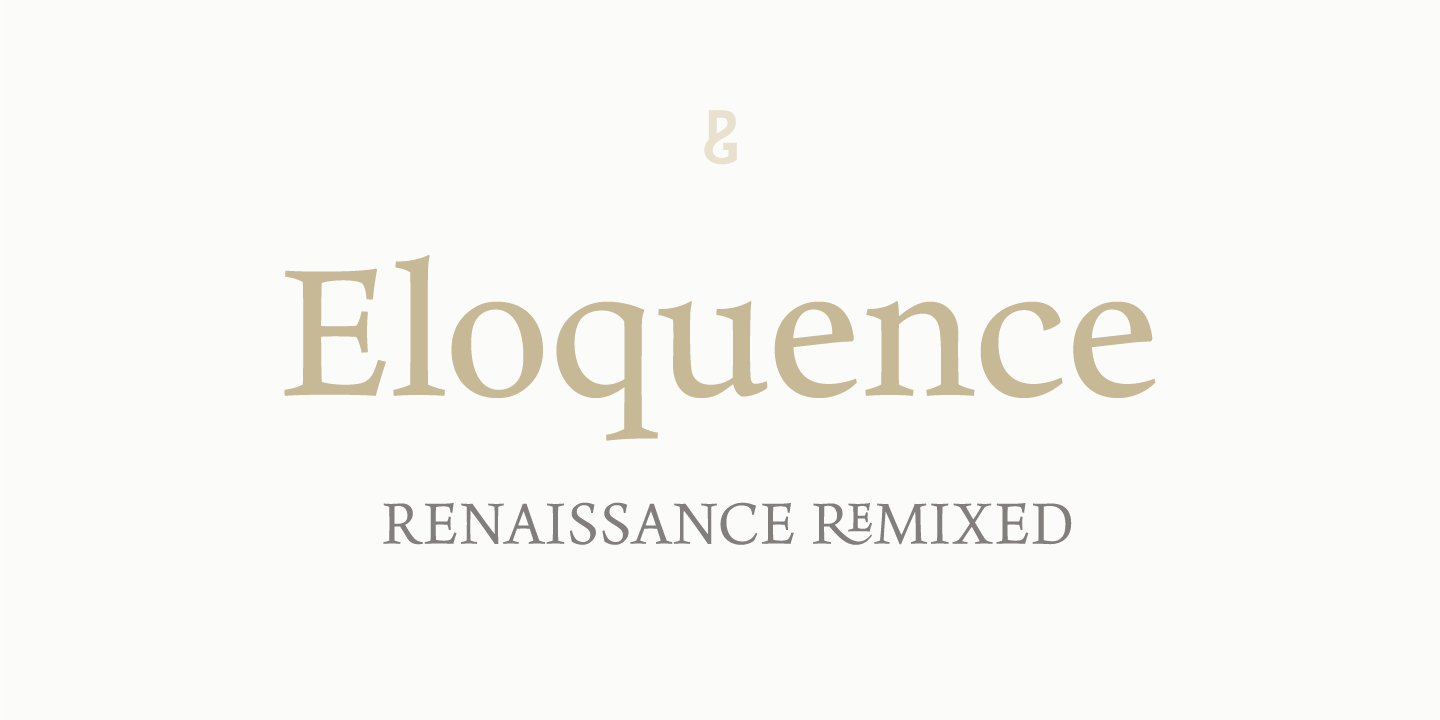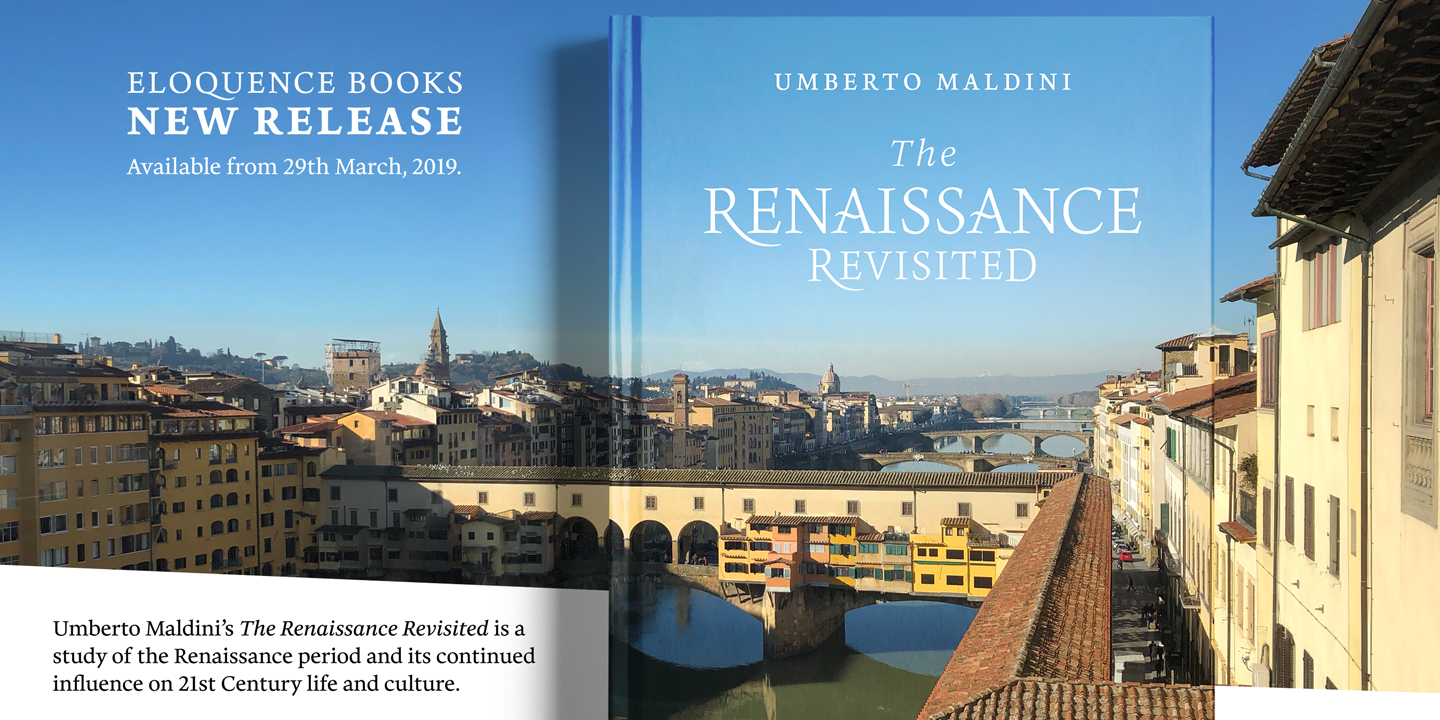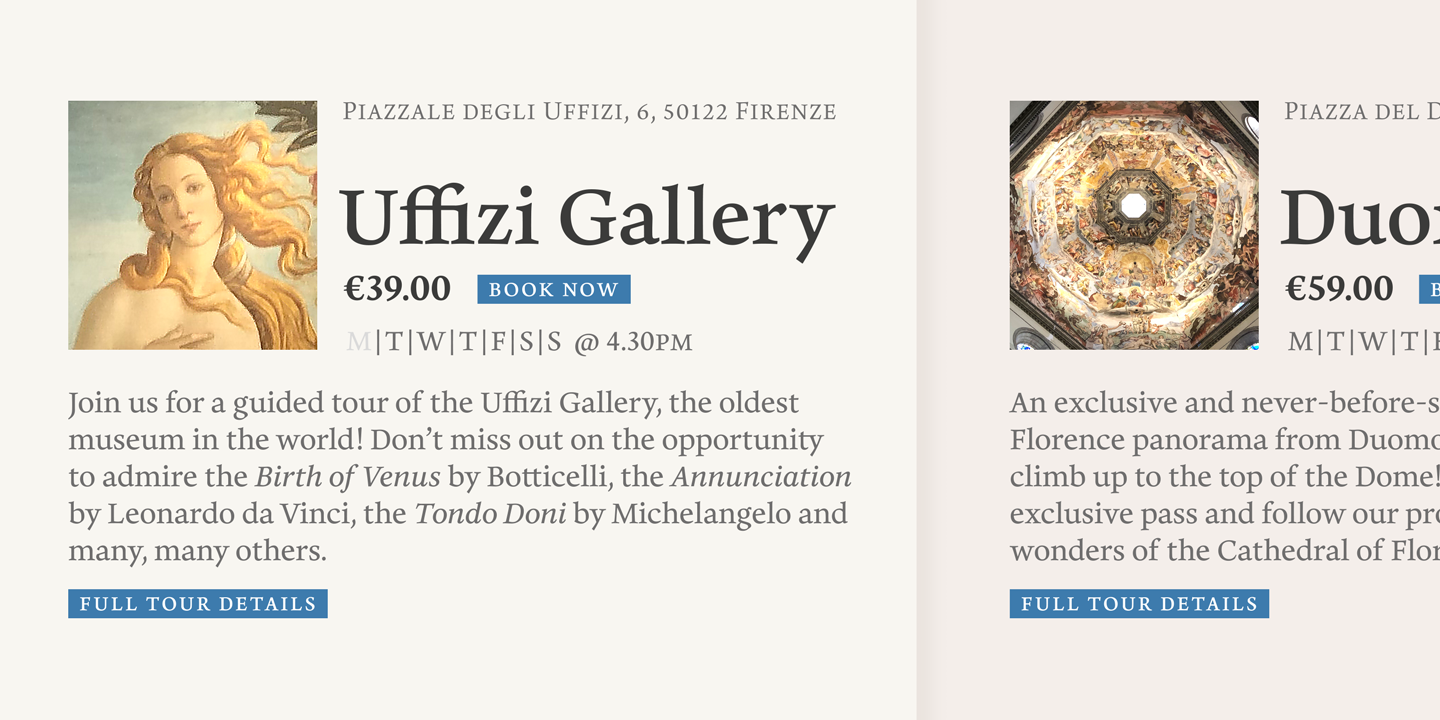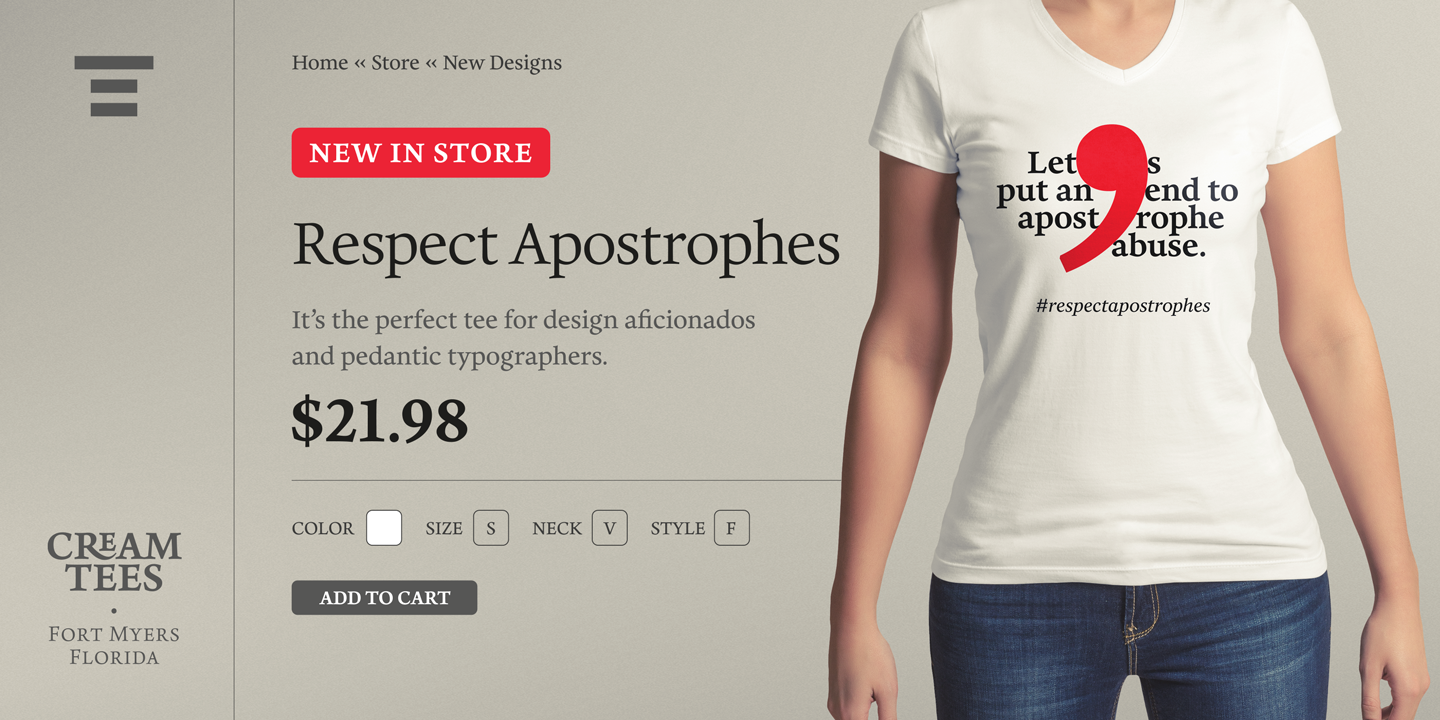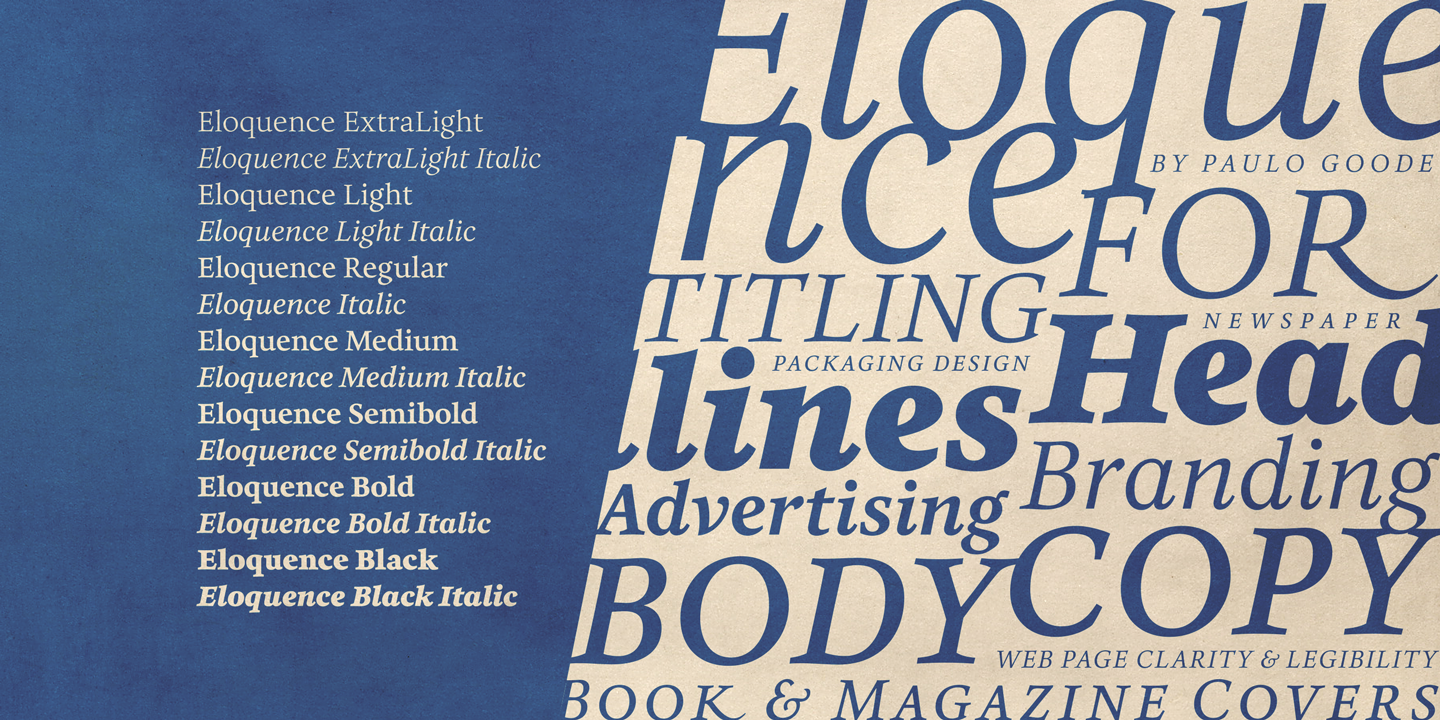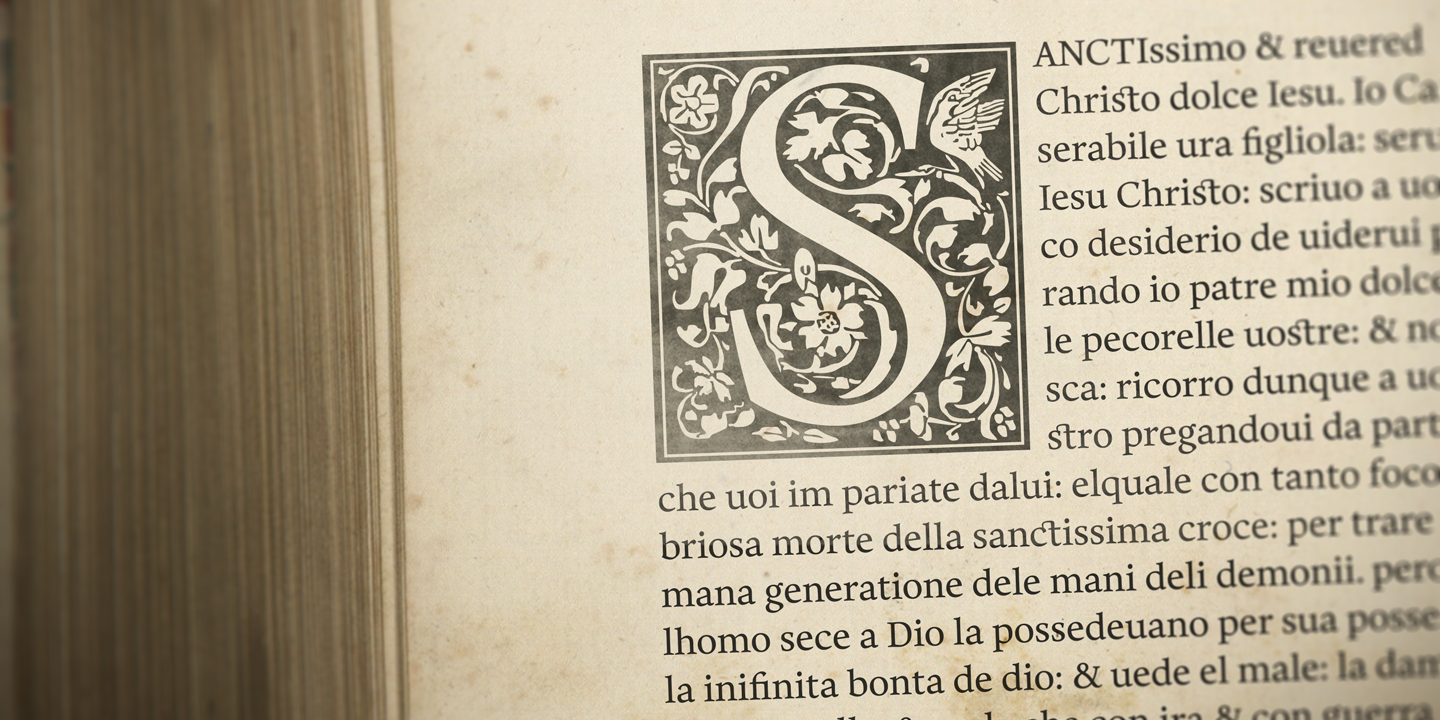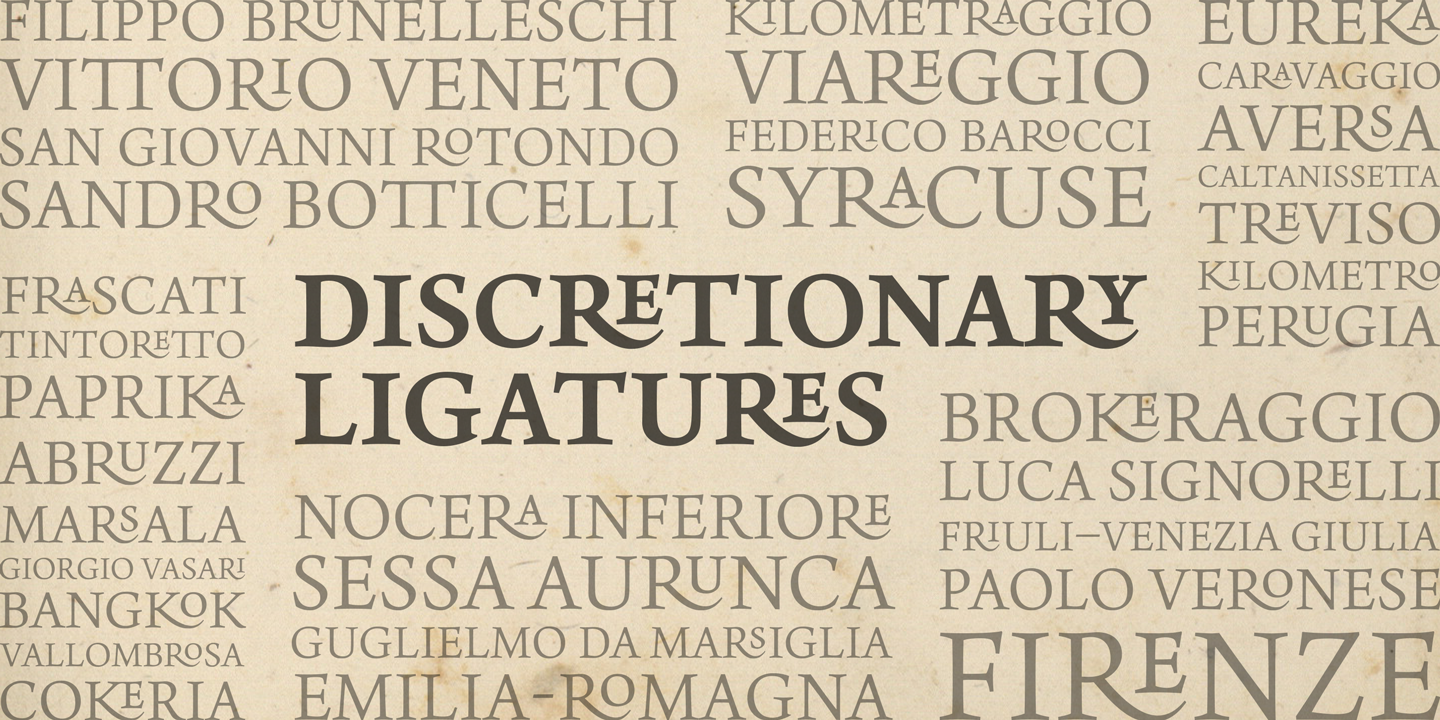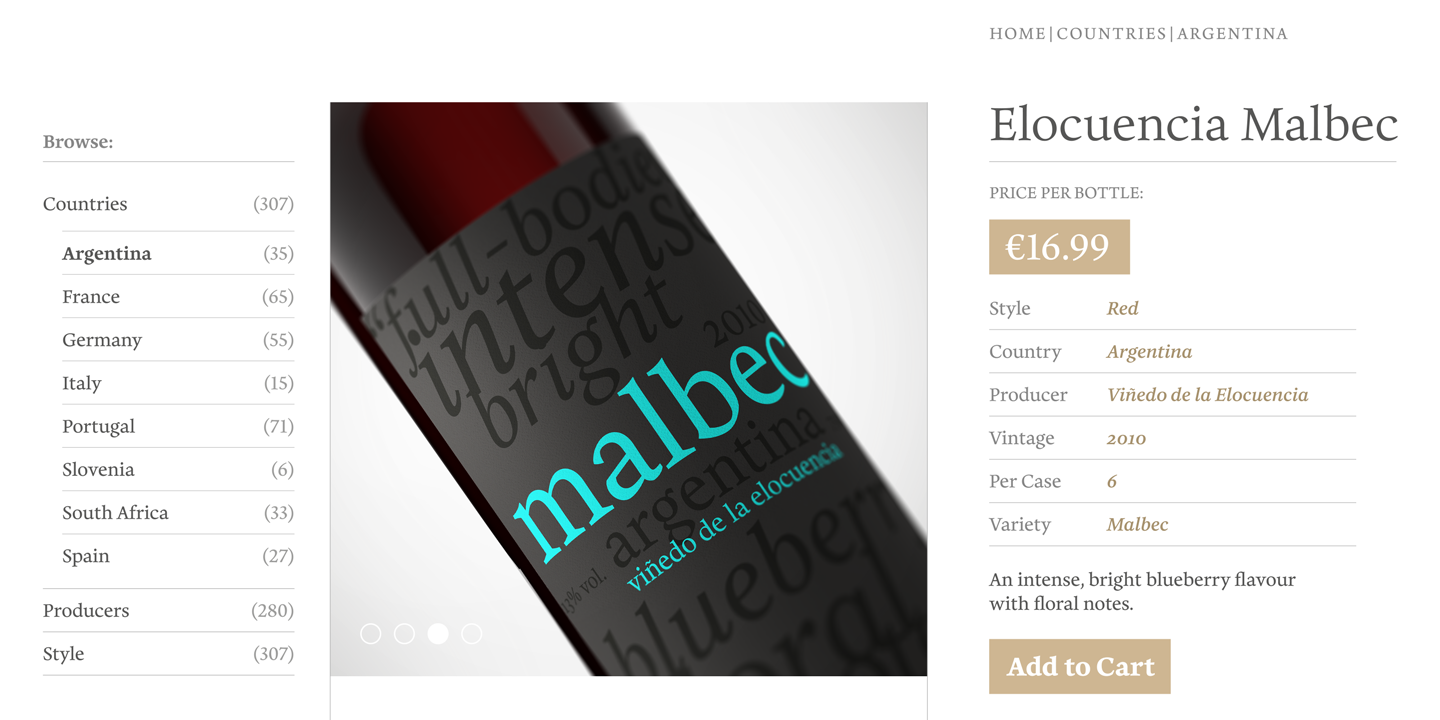
About the Eloquence Font
About Eloquence Font Family Eloquence has a modern aesthetic with a strong classical influence – this is the “Renaissance Remixed”, While being inspired by the first printed texts of the Renaissance period, this typeface has contemporary features such as a high x-height, open bowls and counters, along with razor-sharp serifs and terminals, It has been designed specifically for creating a pleasant reading experience
With a comprehensive character set, Eloquence can comfortably handle printed documents such as novels, magazines, annual reports, along with their equivalent online/digital formats, This 14-font family also has a few tricks up its sleeve by means of some neat, complementing discretionary ligatures and alternates that will prove to be useful embellishments to your typography
Small Caps are included too, along with corresponding diacritics meeting the Latin Extended specification, You can view more details, design examples, and a specimen PDF at eloquence-font, comKey Features:• 14 font family – 7 weights in Roman and Italic• Small Caps, Alternates, Ligatures, with Proportional, Old Style, Small Cap, Fractions, Numerators, Denominators, Superior, and Inferior Figures• Full European character set (Latin Extended)• 900+ glyphs per font